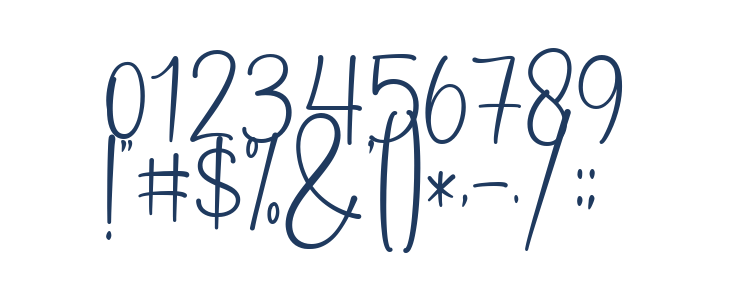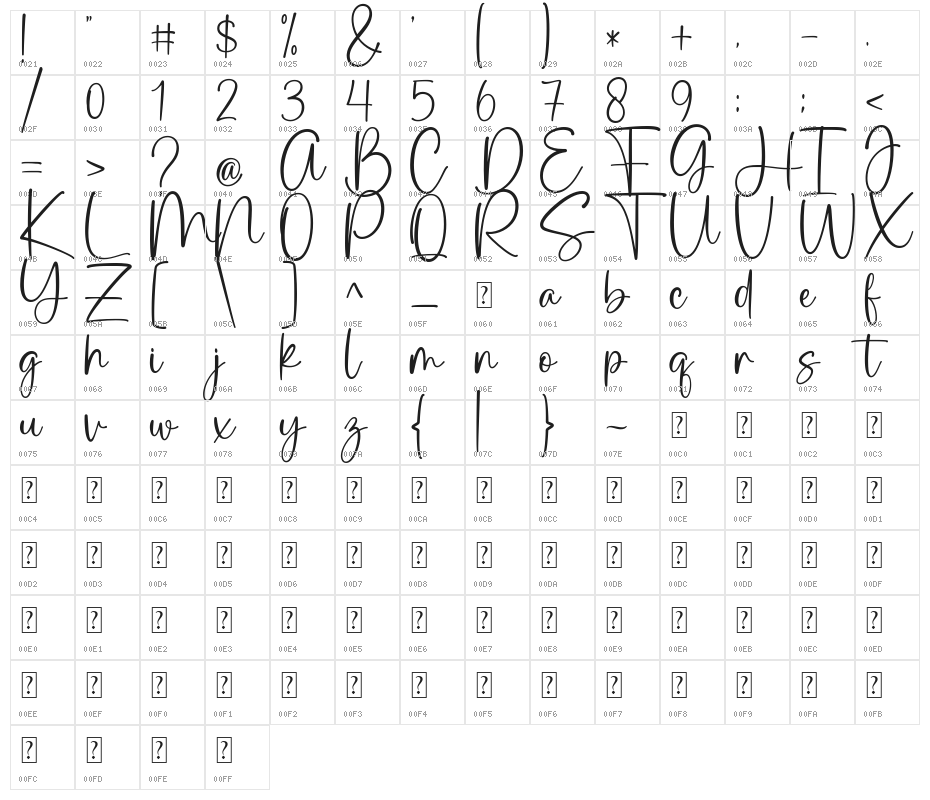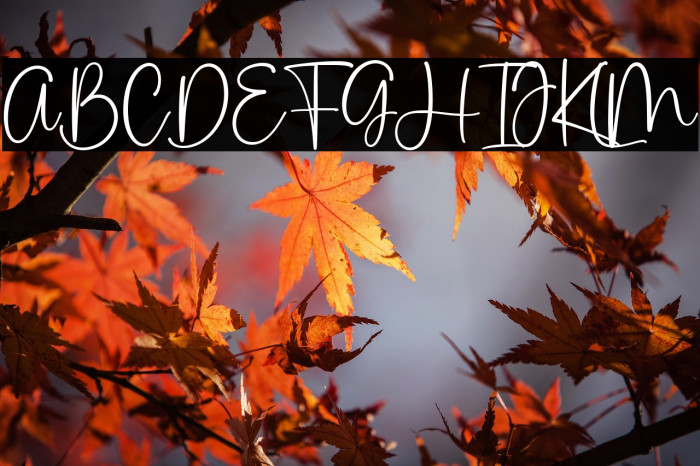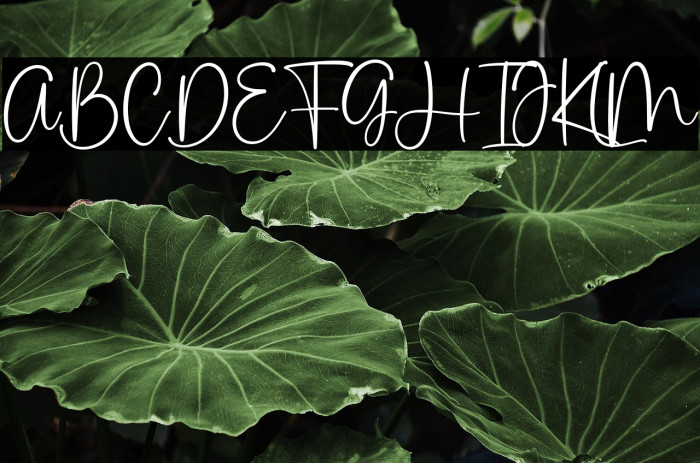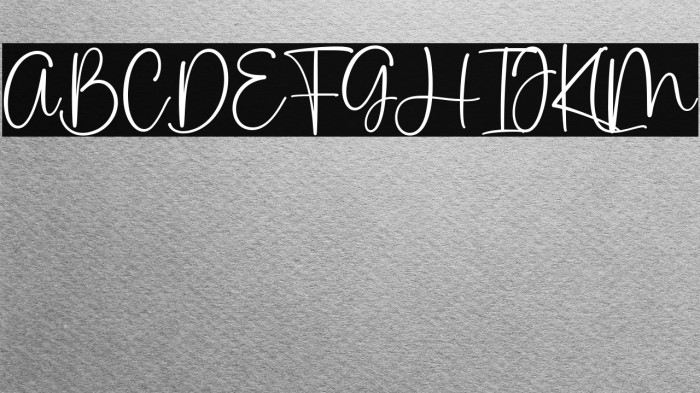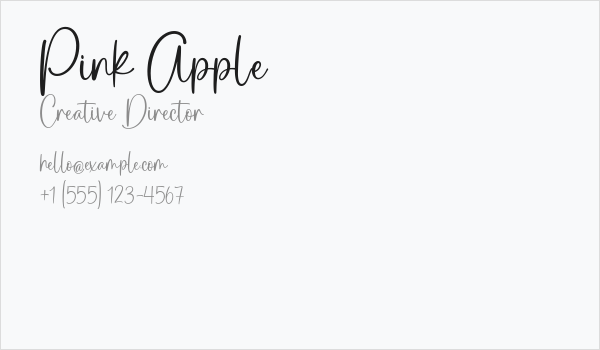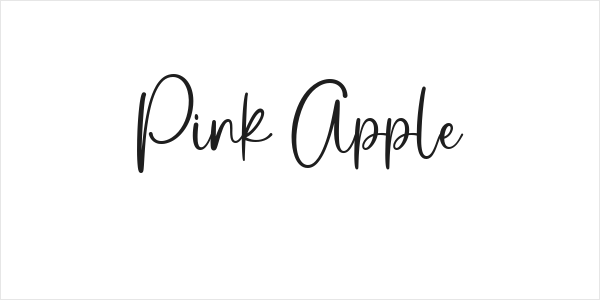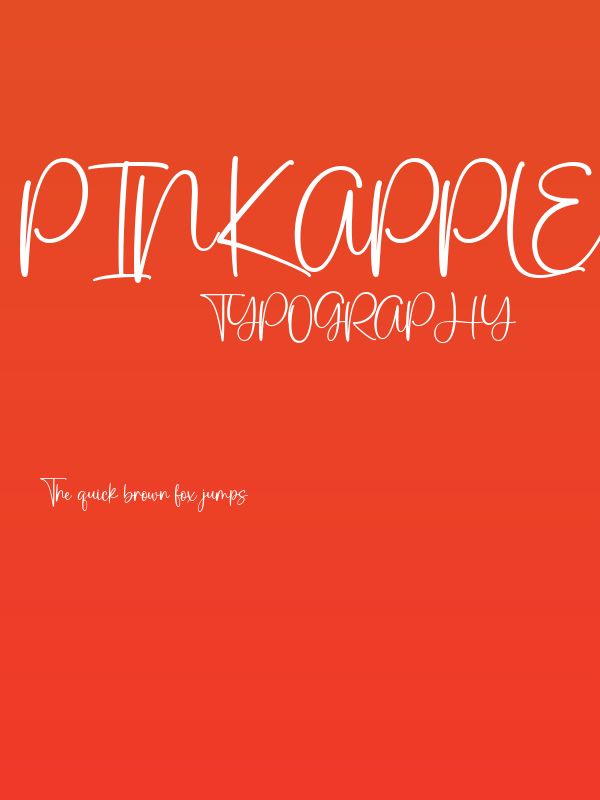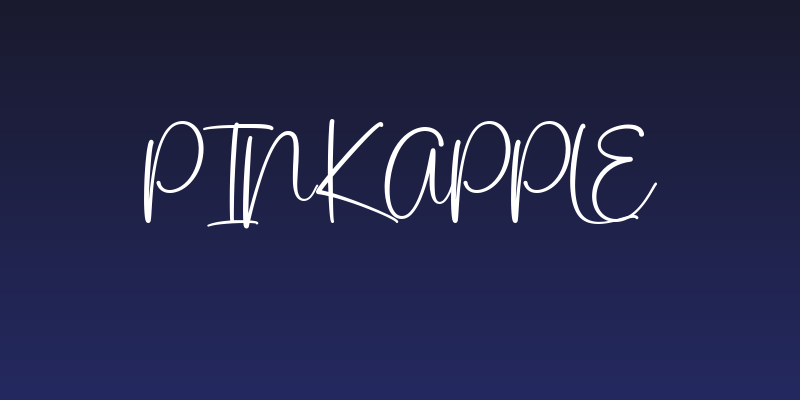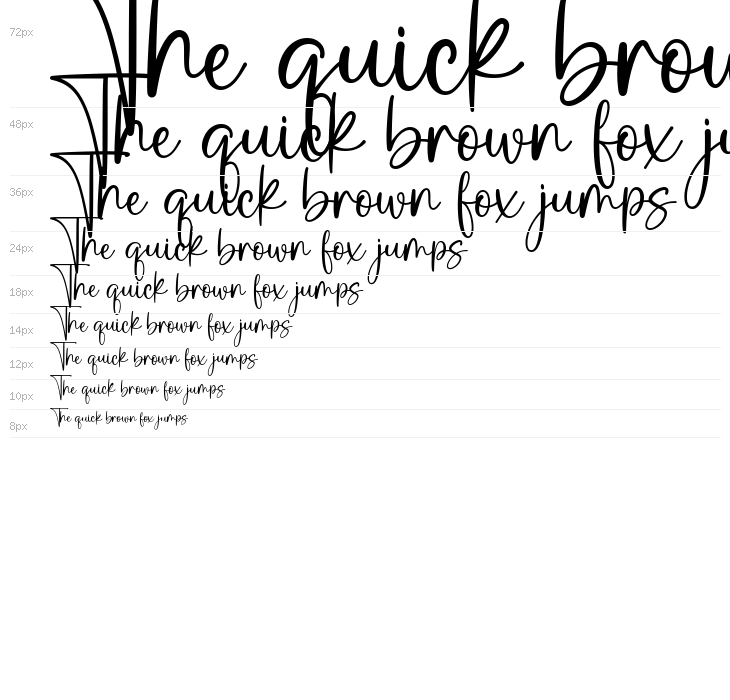
Pink Apple Font
Pink Apple Description
This font features a playful and casual handwritten style, characterized by its flowing and connected letterforms. The uppercase letters are slightly taller and more elongated, while the lowercase letters maintain a consistent, smooth flow. The numbers and special characters complement the overall style with their rounded and friendly appearance. The strokes are consistent in thickness, providing a harmonious and balanced look. This font exudes a sense of warmth and approachability, making it ideal for projects that require a personal touch.
| Use Case | Logos, Invitations, Social media graphics |
| Proposed Projects | Ideal for greeting cards, invitations, personal branding, and social media graphics. |